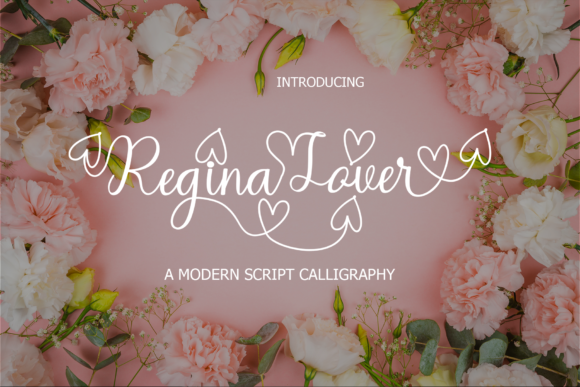
Indulge in the exquisite allure of Regina Lover, a script font that will captivate your heart with its undeniable charm and elegance. This enchanting creation by maydhen studio is the epitome of sophistication, carefully crafted to elevate your designs to new heights.
With Regina Lover, your words will dance across the page with a gracefulness that is both mesmerizing and unforgettable. Its flowing curves and delicate strokes evoke a sense of timeless romance, making it the perfect choice for wedding invitations, thank you cards, and any occasion that calls for a touch of heartfelt expression.
But Regina Lover's versatility extends far beyond the realm of weddings. Its understated elegance lends itself beautifully to logos, business cards, and any design that seeks to exude an air of professionalism and refinement. The handwritten quality of this font imbues your creations with a personal touch, making them truly unique and memorable.
Unlock the full potential of Regina Lover with its PUA encoding, granting you effortless access to a treasure trove of glyphs and swashes. Experiment with different combinations to create captivating designs that will leave a lasting impression.
Step into the world of Regina Lover and discover a font that is not merely a tool but a work of art. Its timeless beauty and endless possibilities will ignite your creativity and empower you to craft designs that inspire, captivate, and leave an indelible mark on the hearts of your audience.